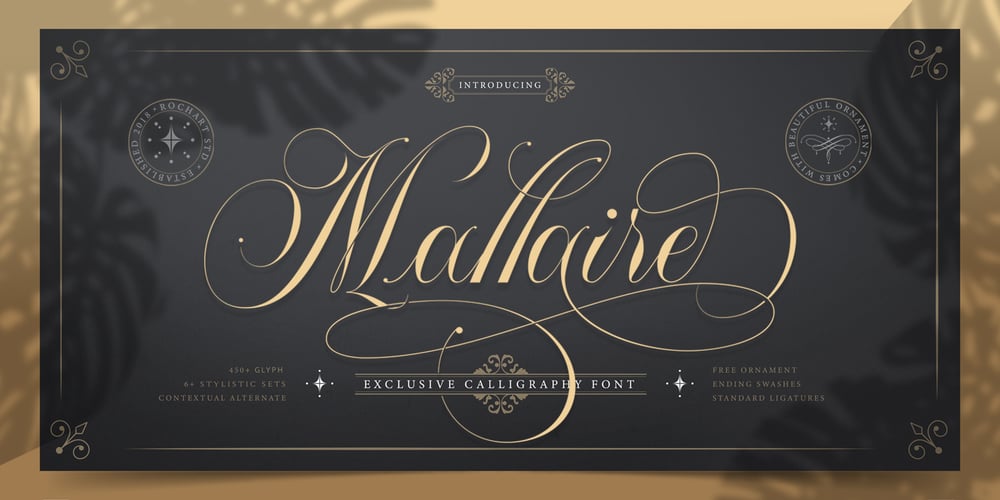
Mallaire Font Family was designed by Rochadi Sudarma and published by Rochart. Mallaire contains 2 styles and family package options. Mallaire is a calligraphy font with an exclusive style and a touch of classic, inspired by the handwriting of ancient manuscripts. Carefully designed to work together in harmony that makes it very suitable for wedding media, book covers, greeting cards, logos, branding, business cards and certificates, even for any design work that requires a classic, formal or luxurious.